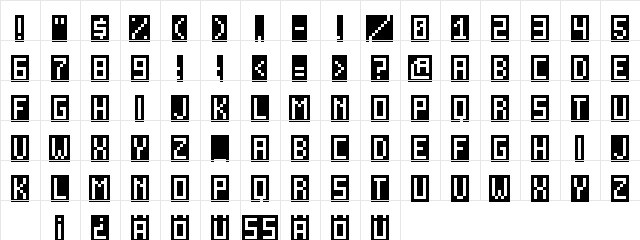
Inverse-Regular Regular
Design Context for Inverse-Regular Typeface
Inverse-Regular is a composed and adaptable typeface that performs quietly and consistently across a wide range of design contexts.